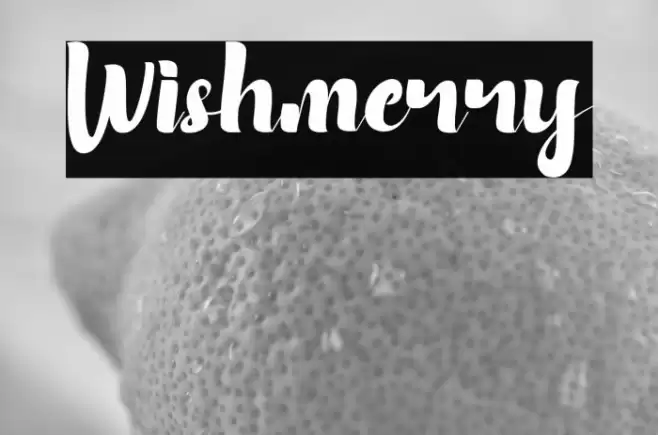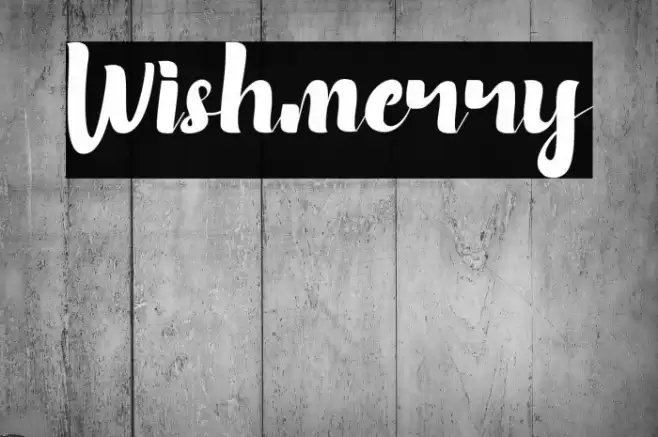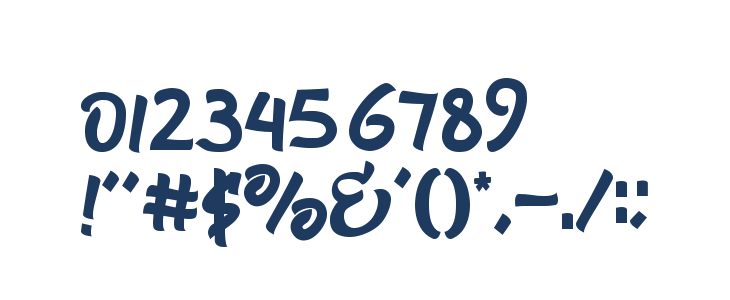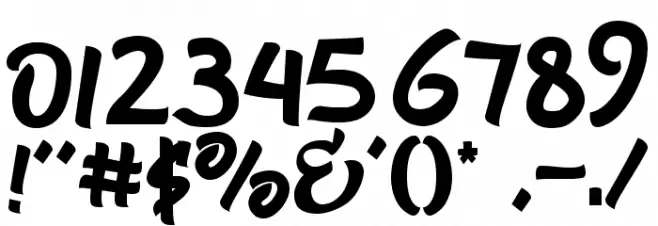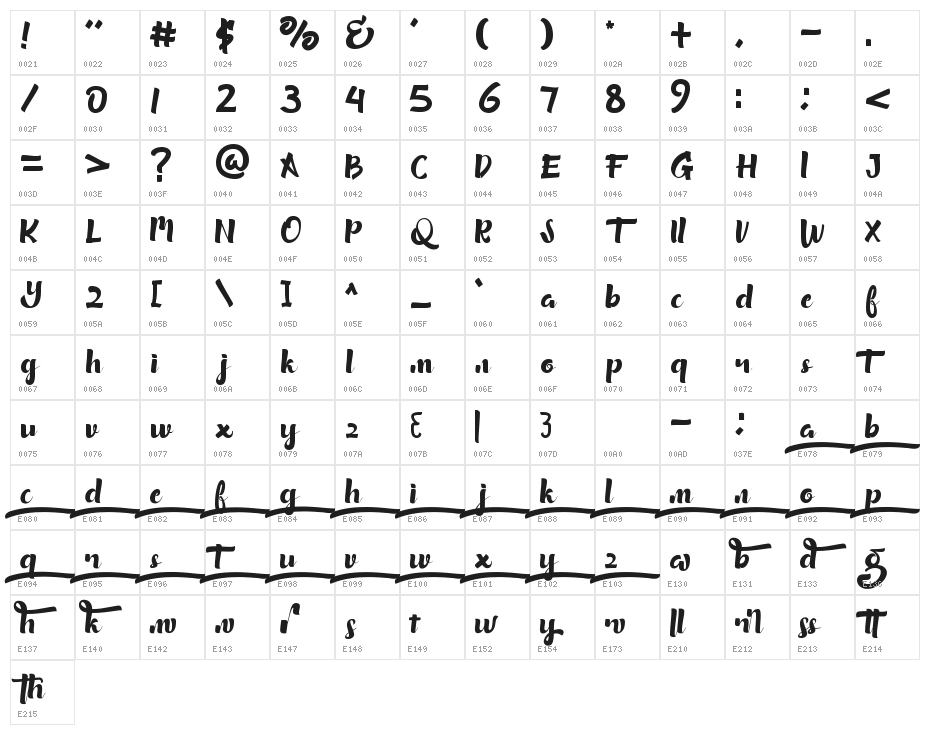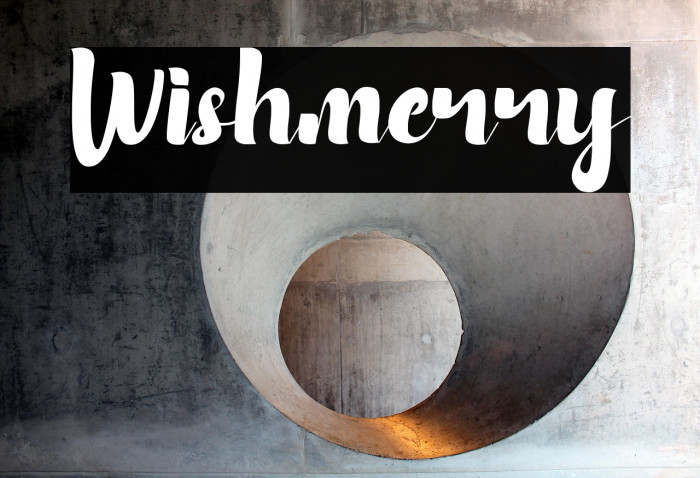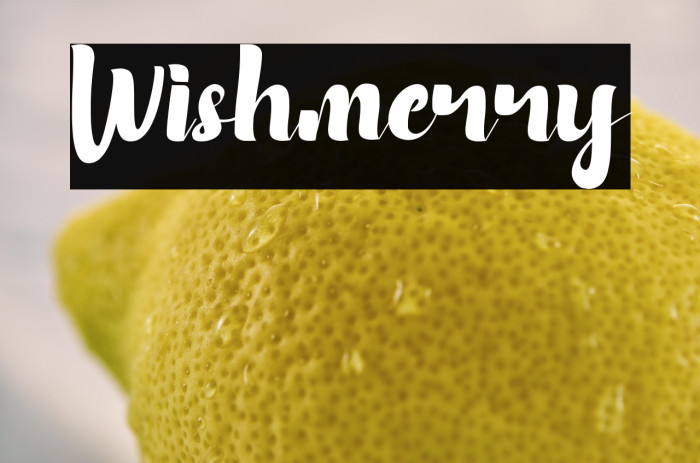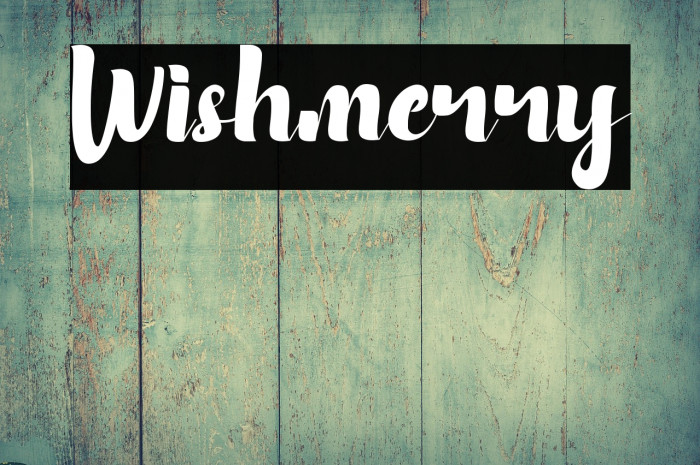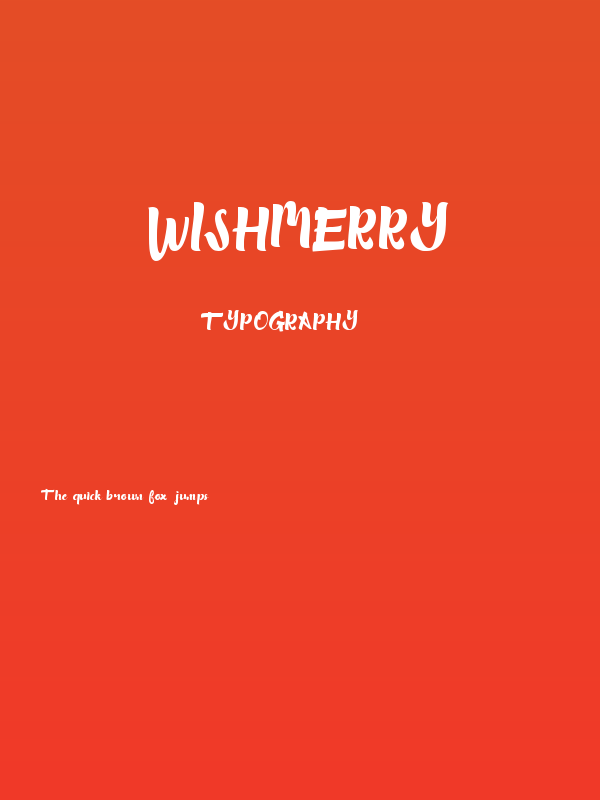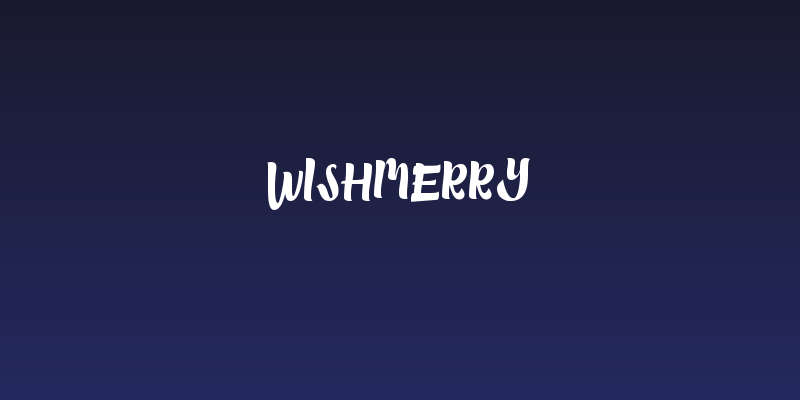
Wishmerry Font
Wishmerry Description
This font features a bold, expressive style with a handwritten flair. The characters are crafted with a brush-like appearance, giving them a dynamic and energetic feel. The uppercase letters are bold and slightly slanted, while the lowercase letters maintain a consistent flow with occasional loops and swirls. The numbers and special characters follow the same artistic style, ensuring a cohesive look throughout. This font is ideal for projects that require a personal touch or a creative, informal vibe.
A bold, expressive handwritten font with a brush-like style from Uncategorized fonts.
- Proposed Projects: Ideal for greeting cards, posters, branding, and social media graphics.